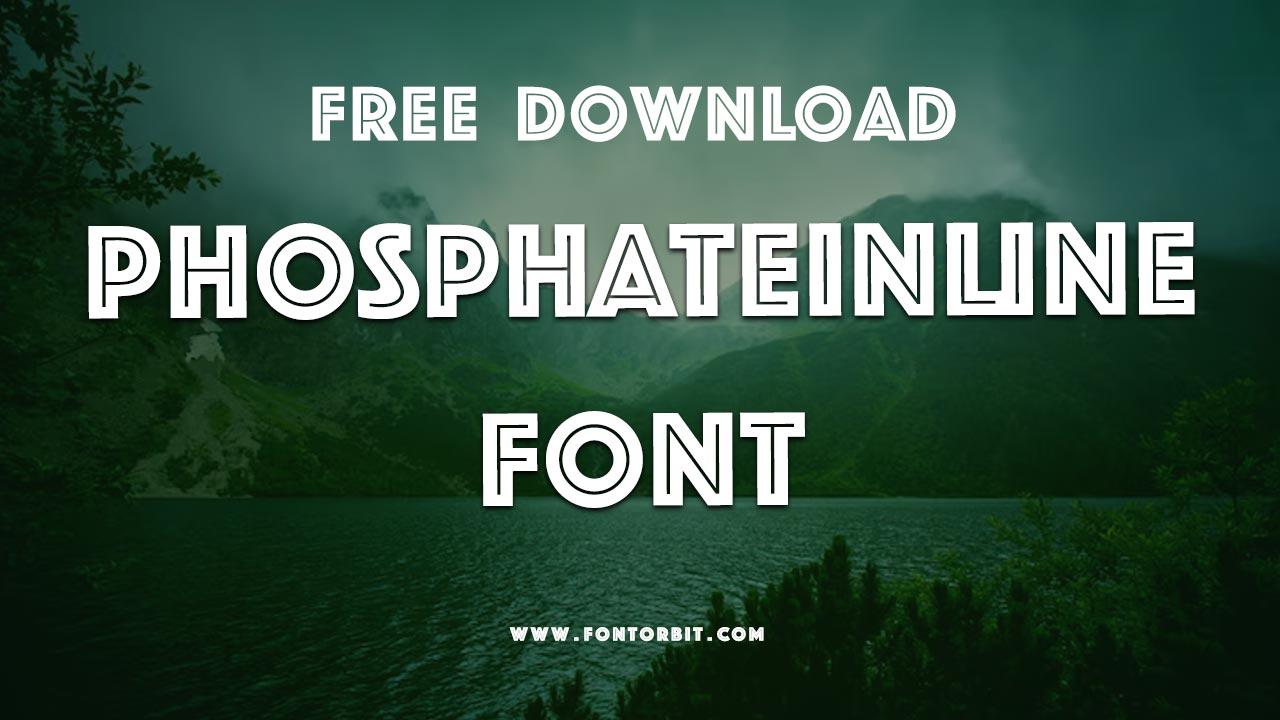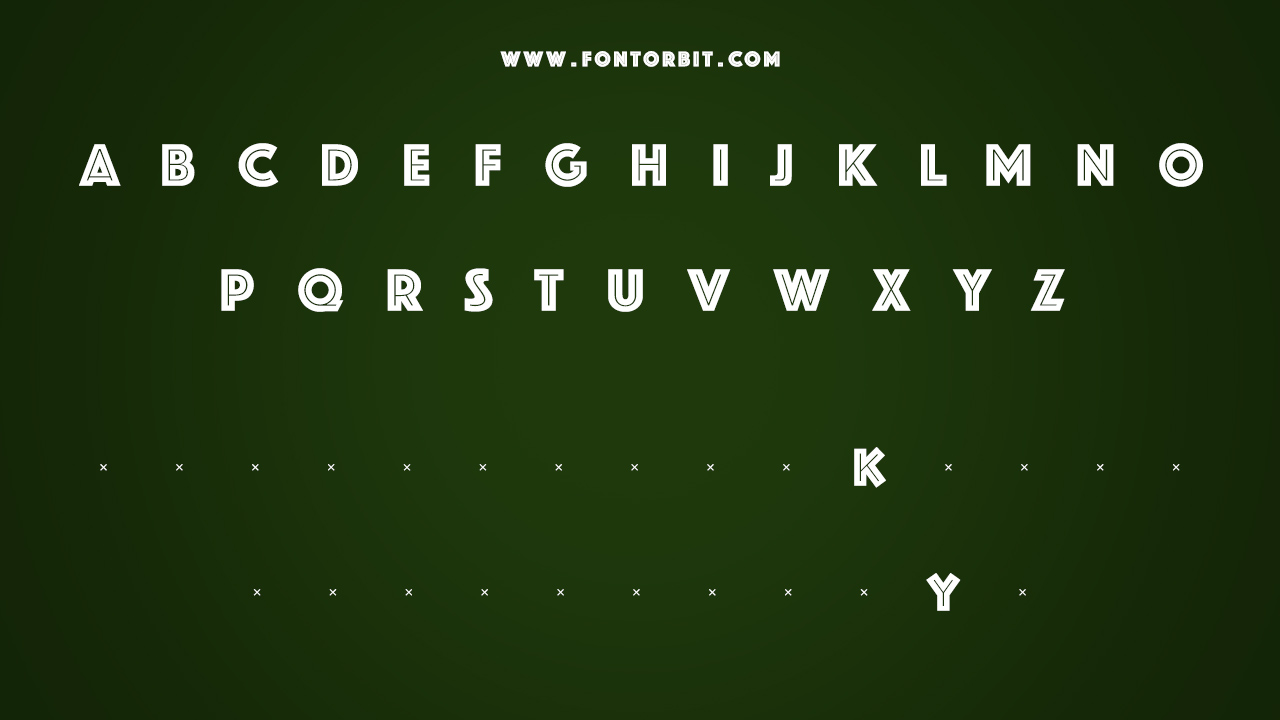
Phosphate Inline Font is an exceptional display typeface created by Veronika Burian and Jose Scaglione. Known for its striking inline design, this font is available for free personal use and is perfect for adding a bold and eye-catching touch to your projects.
Phosphate Inline Font is frequently used in impactful design mediums due. It is ideal for game interfaces, web design, and signage, where a distinctive and visually engaging font is needed. This font also excels in social media graphics and event branding.
Types Of The Phosphate Inline Font
a. Phosphate Inline Regular
- Game Interfaces
- Web Page Design
- Signage and Trade Show Displays
- Social Media Ads, Banners, and Graphics
- Office Branding
- Brochures (Print and Digital)
- Event and Conference Spaces
- Magazine and Newspaper Ads
- Annual Reports
- Images for Websites and Blogs
Phosphate Inline Font, designed by Veronika Burian and Jose Scaglione, offers a unique inline display style perfect for various creative and high-visibility applications.
1.What Are The Factors To Consider When Selecting Phosphate Inline Font For Print Materials?
Consider the font’s visibility, print quality, and its alignment with the project’s aesthetic. Ensure it stands out and maintains readability across different print sizes.
2.What Are The Key Elements To Look For In A Phosphate Inline Font Design?
Look for bold letterforms, clear inline characteristics, and a design that adds visual impact and uniqueness to your project.
3.How To Incorporate Phosphate Inline Font Into A Social Media Post?
Use it for headlines or standout elements. Combine it with simple, readable fonts for body text to ensure clear communication and effective design.
4.What Are The Different Font Styles Suitable For A Bold Display Message?
Display fonts, inline fonts, and bold typefaces are ideal. They offer strong visual impact and attract attention in high-visibility contexts.
5.How To Test The Legibility Of Phosphate Inline Font On Different Devices?
View the font on various screen sizes and resolutions, checking clarity at different sizes and in diverse lighting conditions to ensure consistent readability.